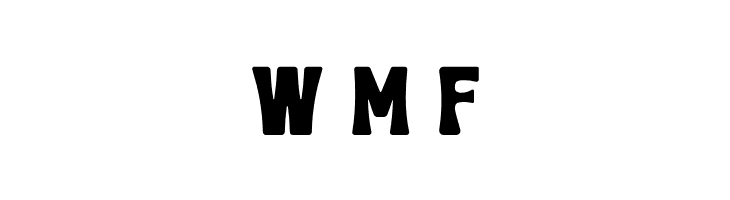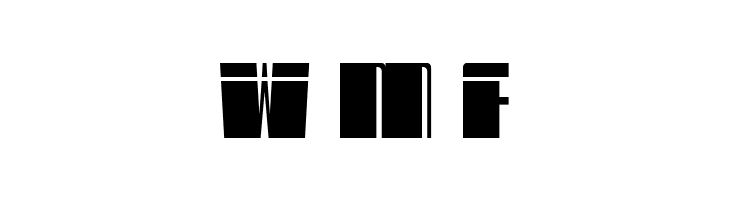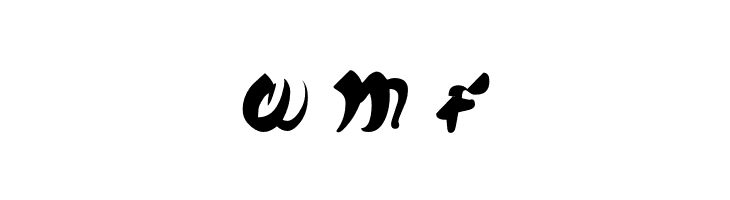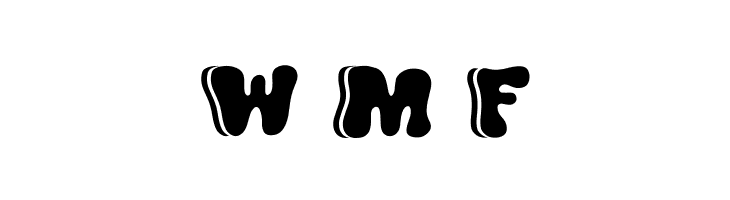
Fonts added on February 16, 2025
Bazoka Regular Font
Font by JunCreative
A playful, bold typeface with rounded, bubbly characters.
BHEKOF-Regular Font
Font by twinletter
A bold, decorative font with unique embellishments and a playful edge.
Boogie Boys Extrude Font
Font by Onne Hermawan
A bold, playful font with a retro, cartoon-like style.
Boogie Boys Regular Font
Font by Onne Hermawan
A playful, bold font with a retro, cartoonish style.
Boogie Boys Shadow Font
Font by Onne Hermawan
A bold, playful font with a shadow effect and rounded, thick characters.
CHEWMEPERSONALUSE-BOLD Font
Font by Billy Argel Fonts ®
A bold, dynamic font with a flowing, cursive-like style and artistic flair.
COSMIC MILES Font
Font by Four Lines
A bold, rounded font with playful and dynamic letterforms.
Emiken Display Regular Font
Font by Attract Studio
A bold, dynamic font with a playful, retro feel and strong presence.
Flower Island Regular Font
Font by Achmad Yani
A playful, bold font with rounded, bubble-like characters.
Grand Paradiso Italic Italic Font
Font by Damarletter
Elegant italic font with smooth curves and a dynamic style.
Grand Paradiso Script Font
Font by Damarletter
A dynamic, cursive script font with a fluid, handwritten style.
Kage Retro Font
Font by Tri Sakti Oktaviano
A bold, playful font with a retro, bubbly style.
Lova Power Font
Font by HansCo
A bold, rounded font with a playful retro aesthetic.
mechababy Font
Font by Beautypes
A playful, bold font with a bubbly, cartoon-like appearance.
Mooschak Free Bold Font
Font by Maulana Creative
A bold, playful font with rounded, bubbly characters and a whimsical style.
No Name Font
Font by DaeDesign
A bold, geometric font with a futuristic and digital aesthetic.
Roman Vibes Font
Font by Bluestype Studio
A bold, playful font with thick, rounded strokes and a unique personality.
Super Pineapple Font
Font by fsuarez913
A playful, bold font with rounded, bubbly characters.
Xagetif-Regular Font